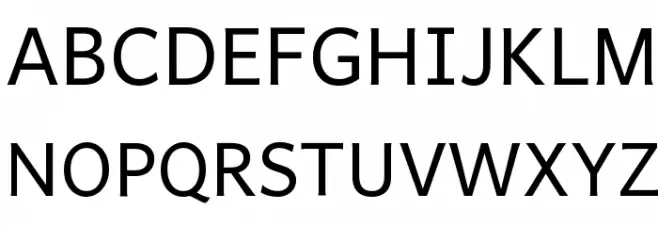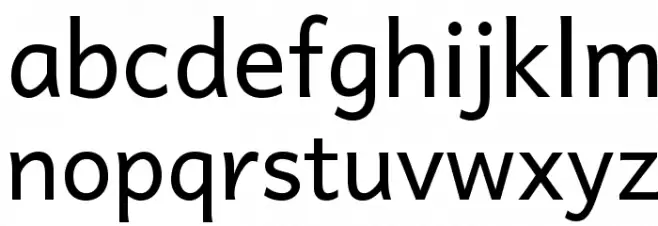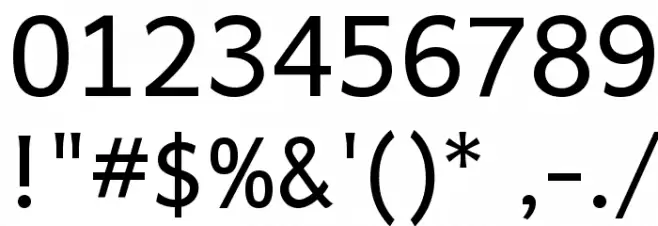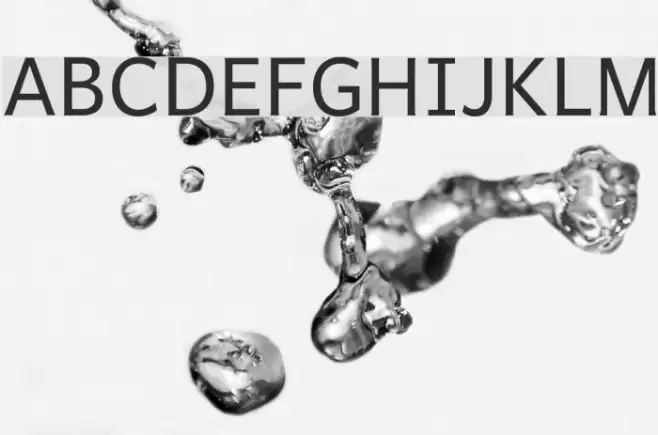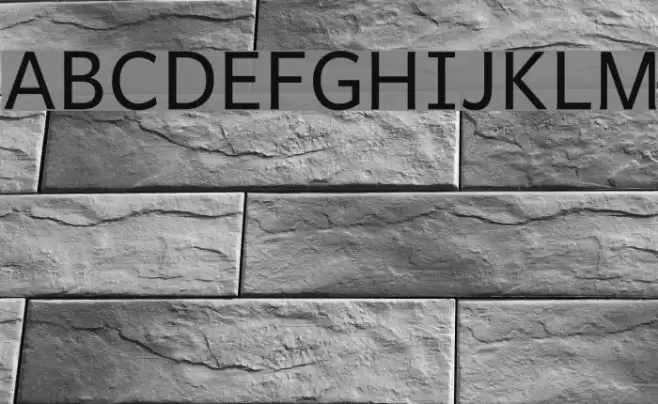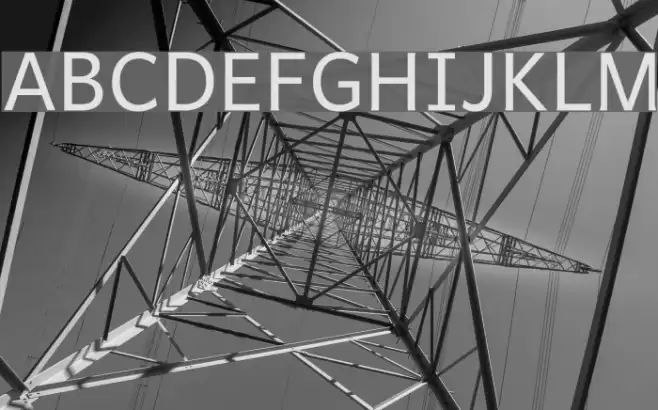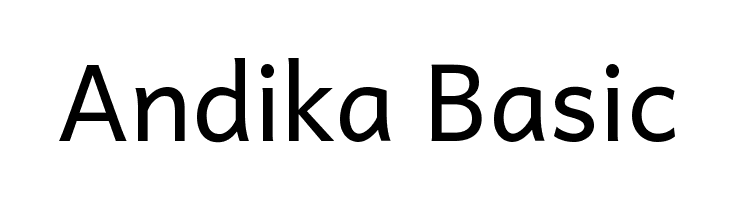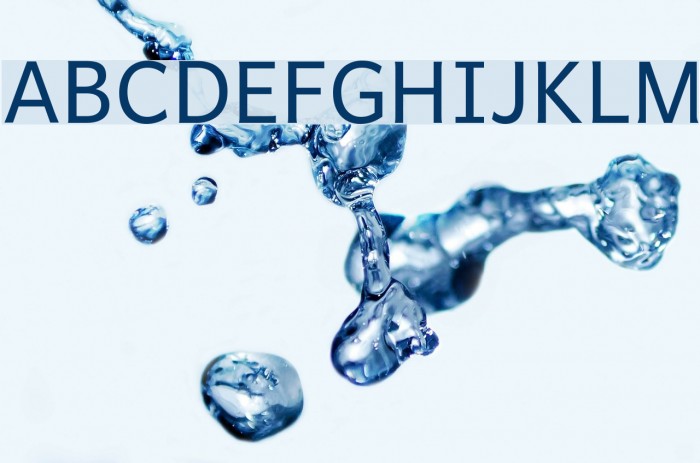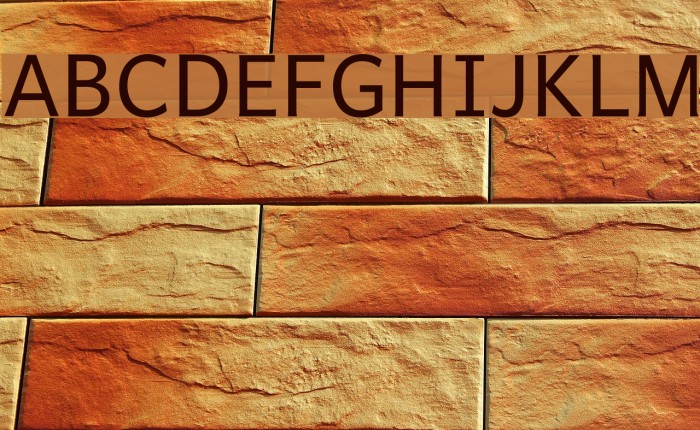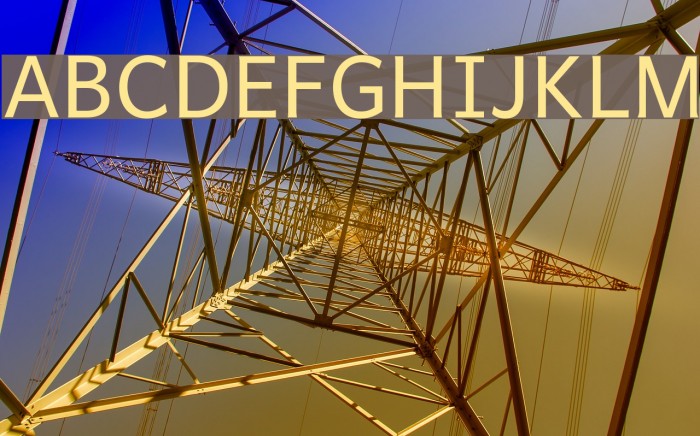
Andika Basic
This font features a clean and straightforward design, characterized by its sans-serif style. The letters are evenly spaced with a consistent stroke width, providing a modern and approachable appearance. The uppercase and lowercase letters are well-proportioned, making it easy to read at various sizes. The numerals and special characters are designed to complement the alphabet, maintaining the font's overall simplicity and clarity. This font is versatile, suitable for both digital and print media, and works well in a variety of contexts due to its legibility and neutral aesthetic.
A clean, sans-serif font with a modern and approachable design.
- Proposed Projects: Ideal for educational materials, user interfaces, websites, and corporate communications.
- Use Case: Body text, User interfaces, Educational materials